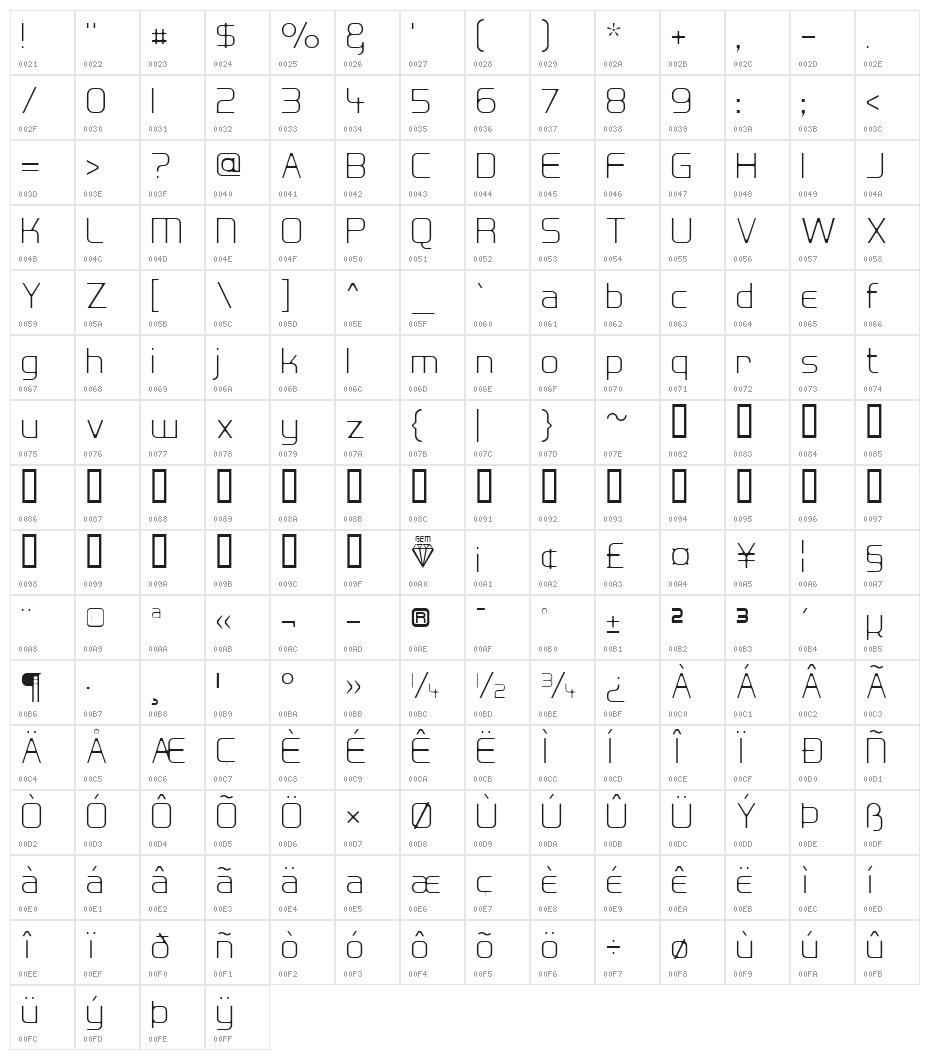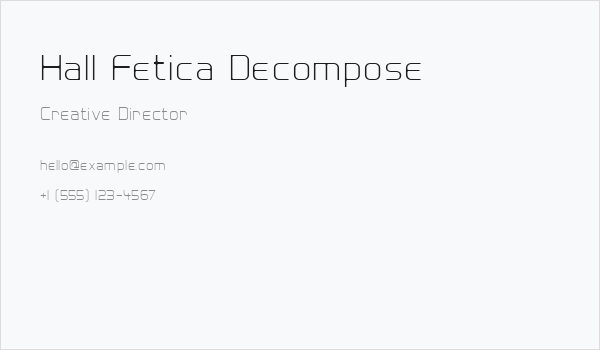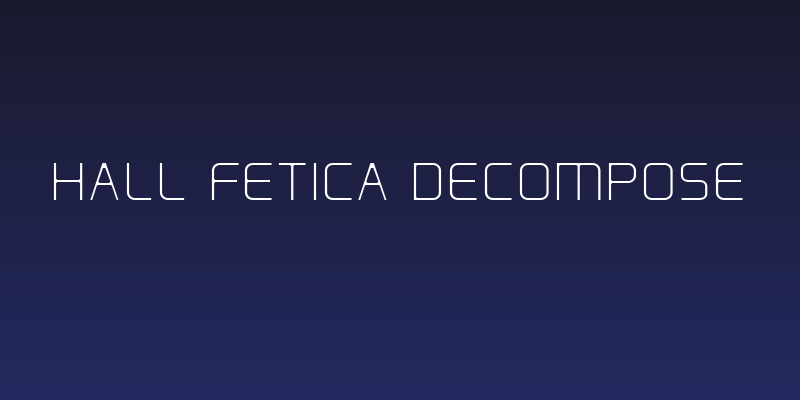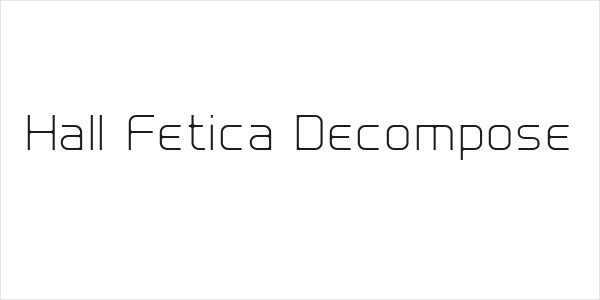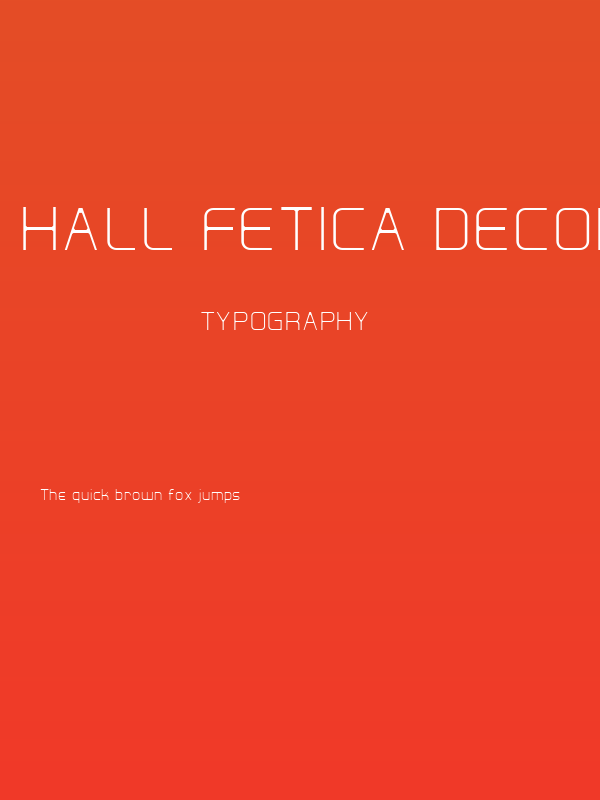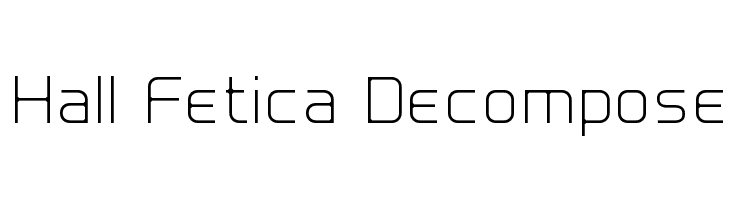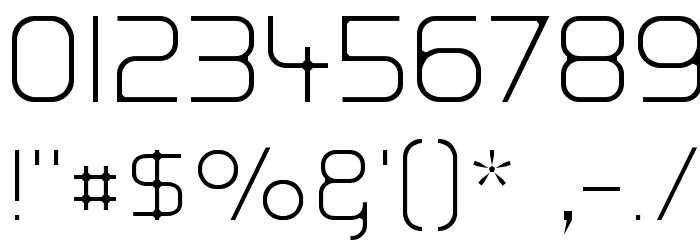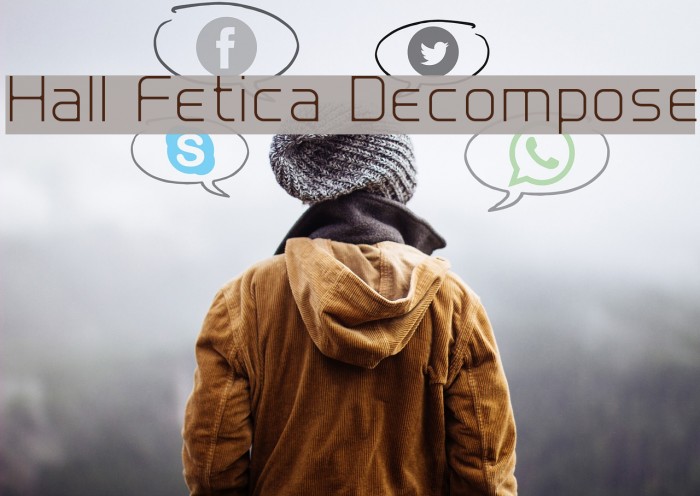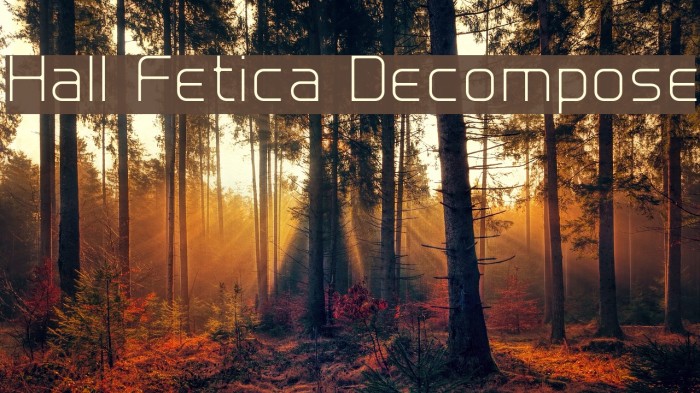
Hall Fetica Decompose Font
Hall Fetica Decompose Description
This font features a modern and minimalist design with clean, geometric lines. The characters are slightly rounded, giving them a friendly and approachable appearance. The uppercase letters are uniform in height, while the lowercase letters maintain a consistent x-height, enhancing readability. The numerals are distinct and align well with the overall style, providing clarity in numerical data presentation. Special characters are designed with the same geometric precision, ensuring a cohesive look across all text elements. The font's simplicity and elegance make it suitable for a wide range of applications.
| Use Case | Headlines, Body text, Logos |
| Proposed Projects | Ideal for tech branding, modern web design, and minimalist print materials. |